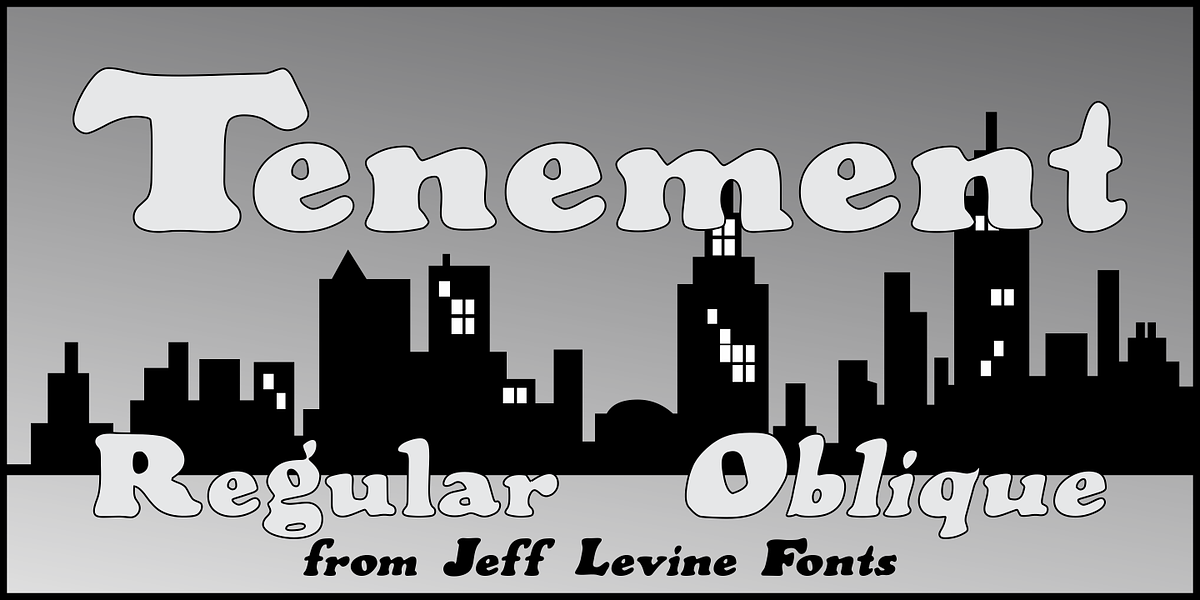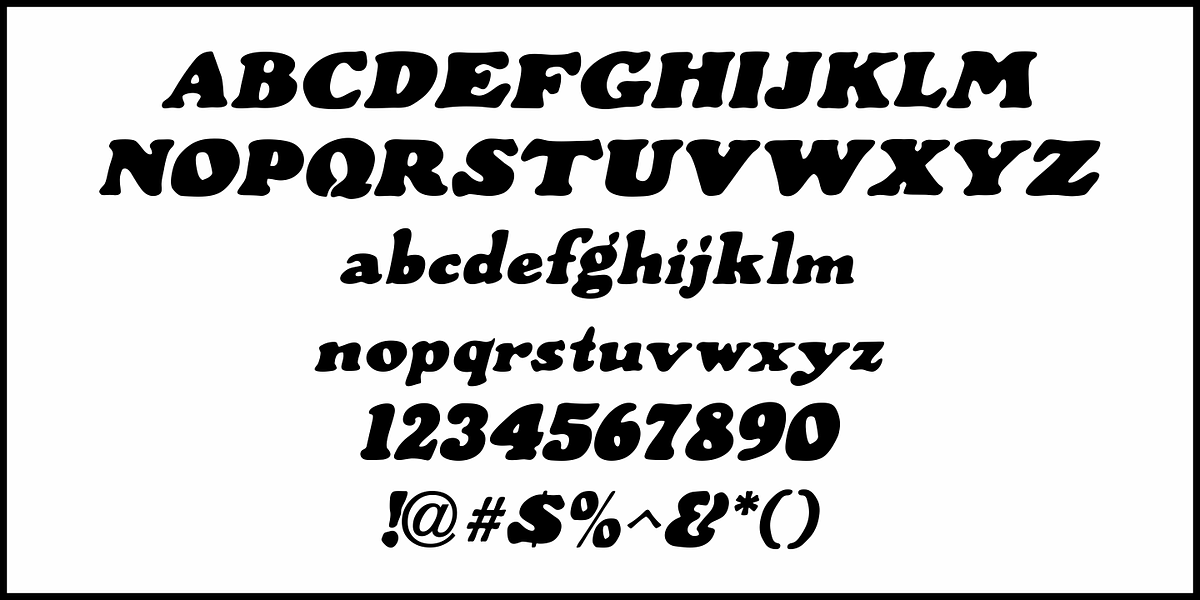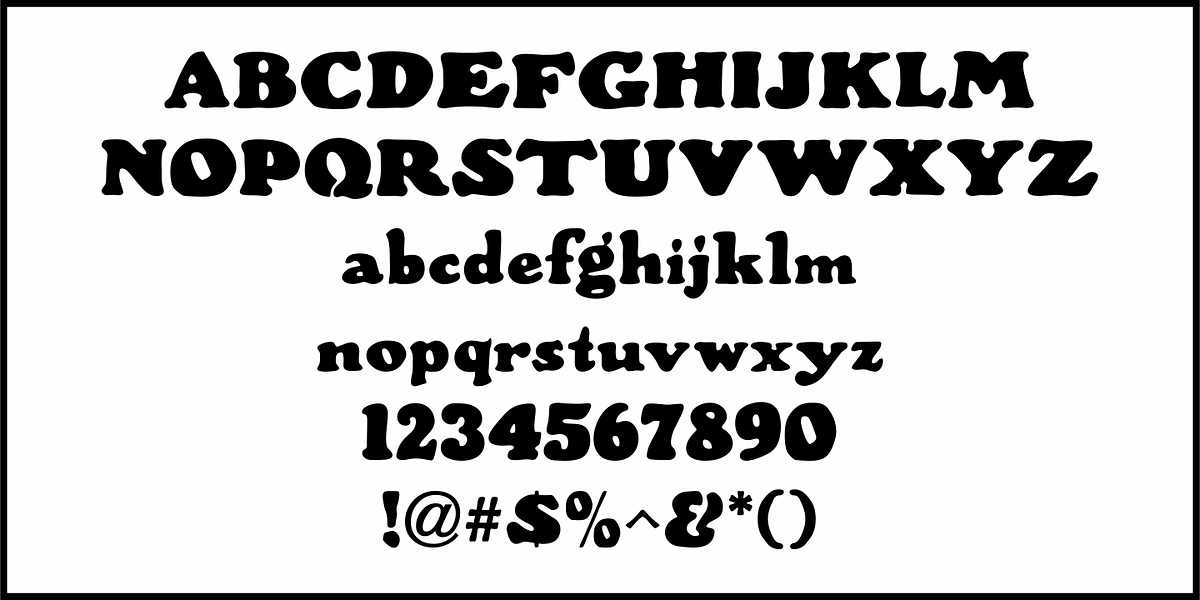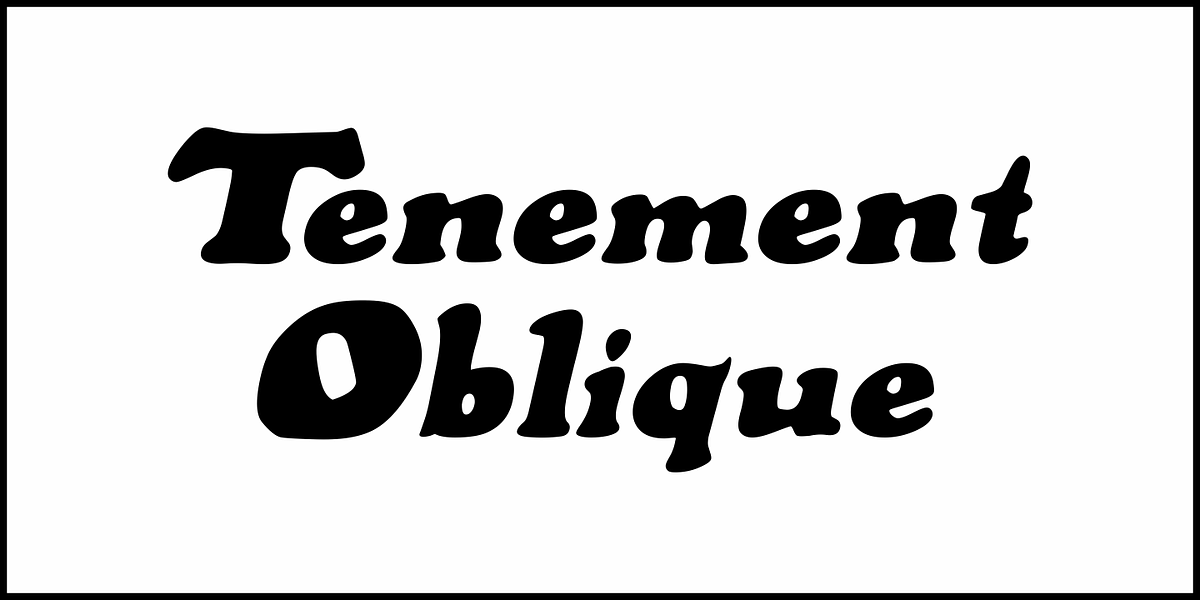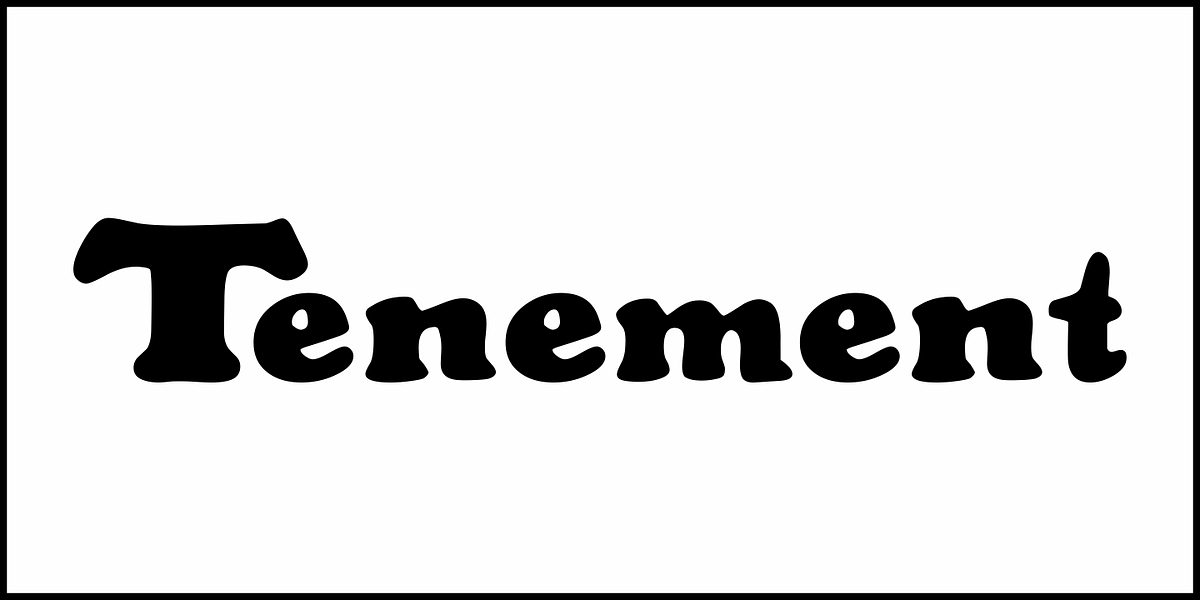
Tenement JNL
A 1916 book entitled “Lettering” by Thomas Woods Stevens features a number of hand lettered alphabets; some plain, others unique. One of the more novel examples was designed by Harry Lawrence Gage and featured letters and numbers with a crude, wavy style described in the book as “adapted to wood block and linoleum cutting”.
To keep the design as close to the original as possible, the image from the book page was auto-traced, with each character given just enough of a clean-up as to retain its own quirkiness while smoothing out any jagged lines and fixing some curves.
From there, other necessary characters were created for the digital font, and the end result is Tenement JNL, which is available in both regular and oblique versions.